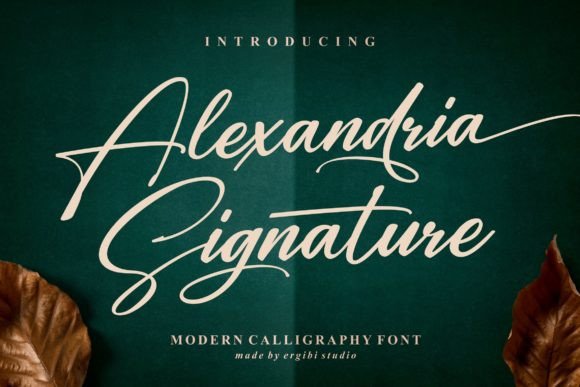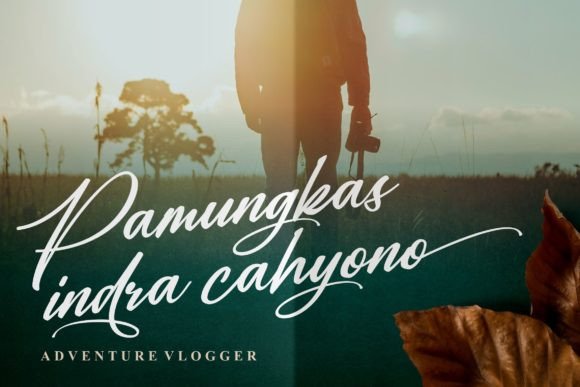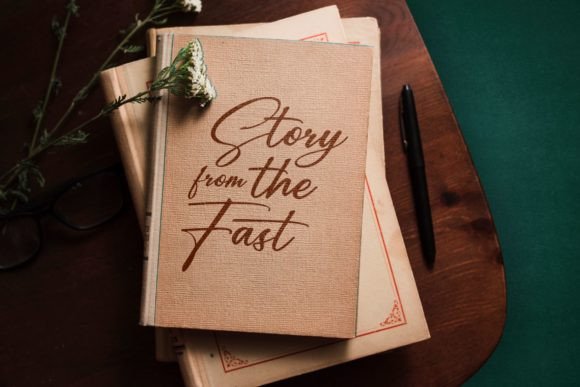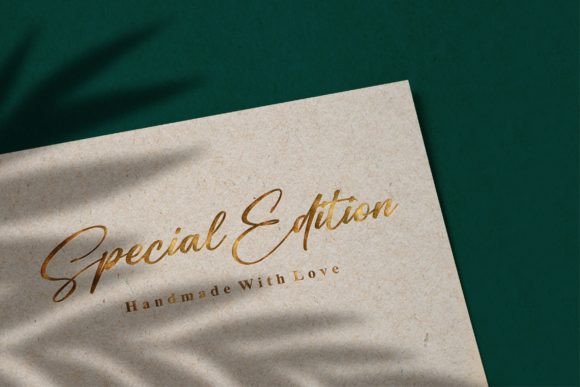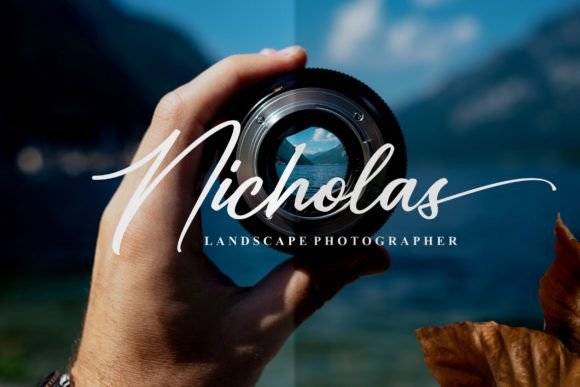
Alexandria Signature Font
About Alexandria Signature Font
Alexandria Signature is a flowing handwritten font, described by an elegant touch, perfect for your favorite projects. Fall in love with its incredibly distinct and timeless style and use it to create spectacular designs!